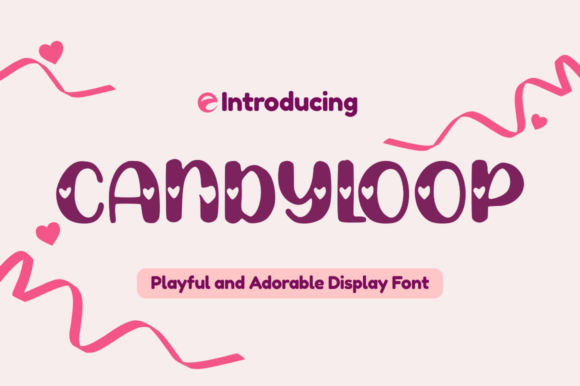
The Sweetest Font You’ll Ever Use: A Deep Dive into Candyloop Font
I’ll never forget the time I was working on a Valentine’s Day card project for a client, and I just couldn’t find the perfect font. I wanted something that would capture the sweetness and playfulness of the holiday, but everything I found seemed either too boring or too over-the-top. That’s when I stumbled upon Candyloop Font, and let me tell you, it was love at first sight! 💕
With its adorable heart-shaped cutouts and whimsical charm, Candyloop Font quickly became my go-to for all sorts of creative projects. And today, I’m excited to share its awesomeness with you! Whether you’re a designer, crafter, or creative hobbyist, this font is sure to bring a smile to your face and a touch of sweetness to your work.
So, what makes Candyloop Font so special? Here are a few things that I absolutely adore:
- ✨ Playful and charming design: Each character is carefully crafted with heart-shaped cutouts, making it perfect for Valentine’s Day cards, baby shower invitations, kids’ apparel, and more.
- ✅ Ease of use: The font is surprisingly versatile and works well in a variety of contexts, from digital designs to print materials.
- 💕 Emotional connection: The whimsical design of Candyloop Font is sure to evoke feelings of joy and love in your audience.
Of course, no font is perfect, and Candyloop Font has a few minor quirks to keep in mind:
- 🤔 Limited use cases for formal designs: While Candyloop Font is amazing for playful and creative projects, it might not be the best fit for more formal or professional designs.
- ⚠️ Occasional rendering issues: As with any font, you might encounter some rendering issues in certain software or platforms, but these are usually easy to work around.
One of the best things about Candyloop Font is its support for OpenType features and glyphs. These allow you to customize the font even further, adding an extra layer of creativity to your designs. Some of the features you can explore include:
- Stylistic alternates: Swap out characters for alternate versions with different heart shapes or designs.
- Glyphs: Access special characters like hearts, stars, or other whimsical symbols to add to your text.
The Story Behind Candyloop Font
Candyloop Font was created with love and care by a talented designer who wanted to capture the essence of sweetness and playfulness in a typeface. Inspired by childhood memories of Valentine’s Day cards and sweet treats, this font is designed to bring joy and whimsy to your creative projects.